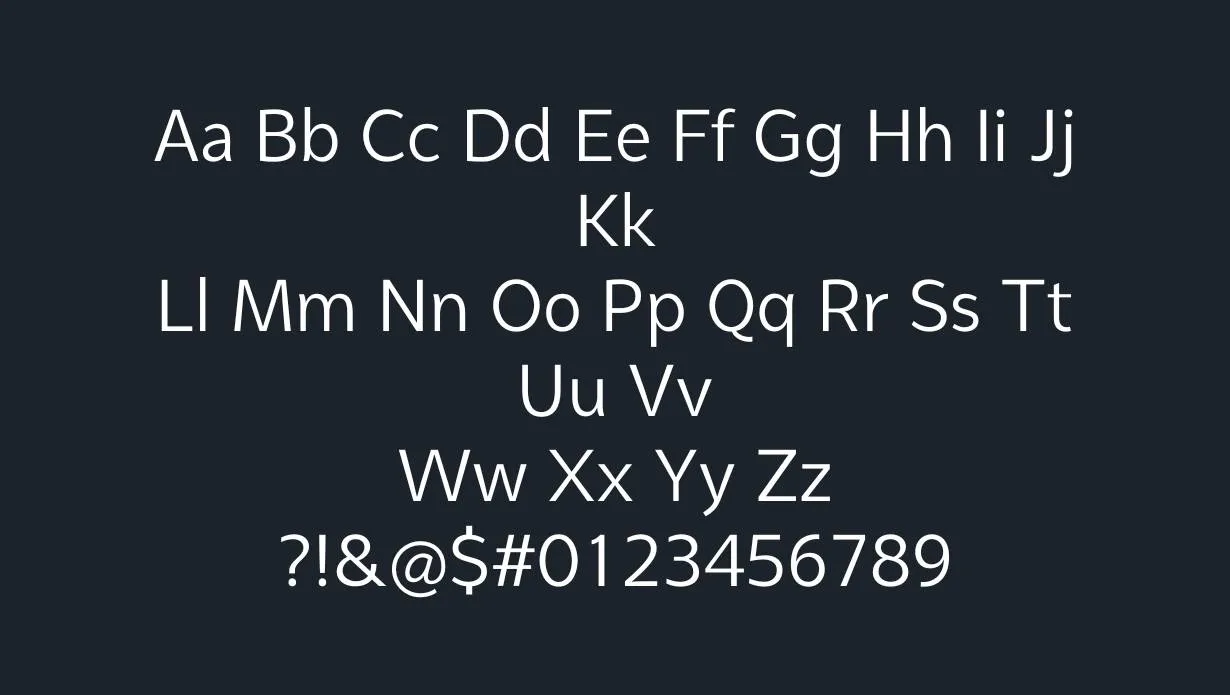
The Syabil font embodies a friendly and welcoming appearance, providing warmth to designs. In Adobe Photoshop, it creates inviting posters or friendly visual content that exudes warmth.
When utilized in CSS, it imparts a friendly and inclusive touch to web design, fostering a welcoming environment. In Canva, it’s ideal for producing engaging invitations or warm and friendly social media posts, fostering a sense of community and hospitality.
| Name | Syabil Font |
| Designer | Eko Bimantara |